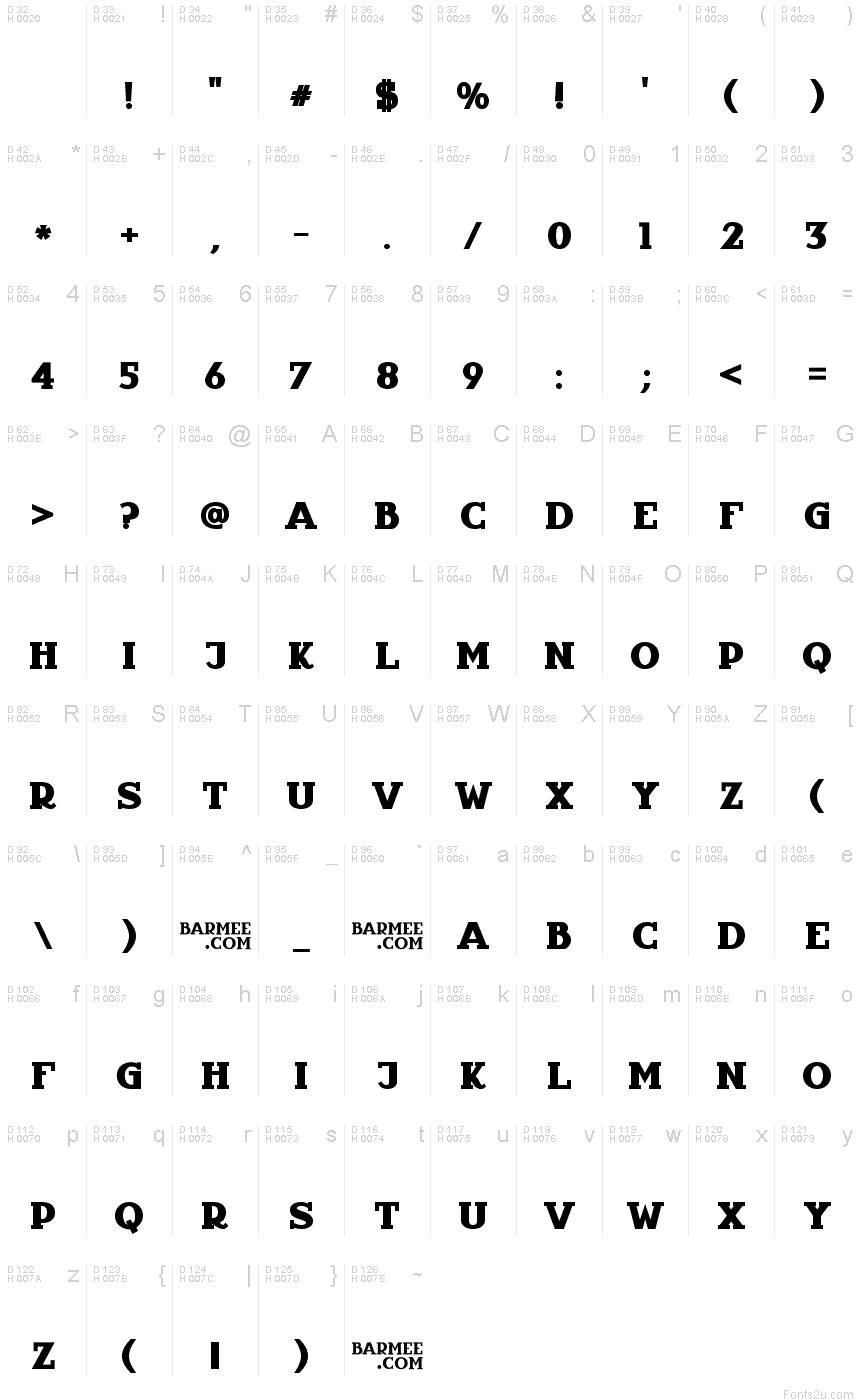
InfantylFat
Infantyl Fat font by Barmee.com is a free decorative serif font. Thick, blocky letterforms sit on sturdy feet, giving every word a weighty, almost poster-printed feel. Tight spacing and straight, squared edges create a bold wall of text that reads loud and clear, even from a distance, while the slightly rugged finish keeps it from feeling too polished or corporate.
Using Infantyl Fat, your titles instantly command attention on gig posters, zines, book covers, retro branding, packaging, and bold social graphics. This free font shines when you set it large and let the chunky forms breathe with generous margins. For subheadings or body copy, pair it with a clean geometric sans to keep layouts readable while the headlines do all the shouting.